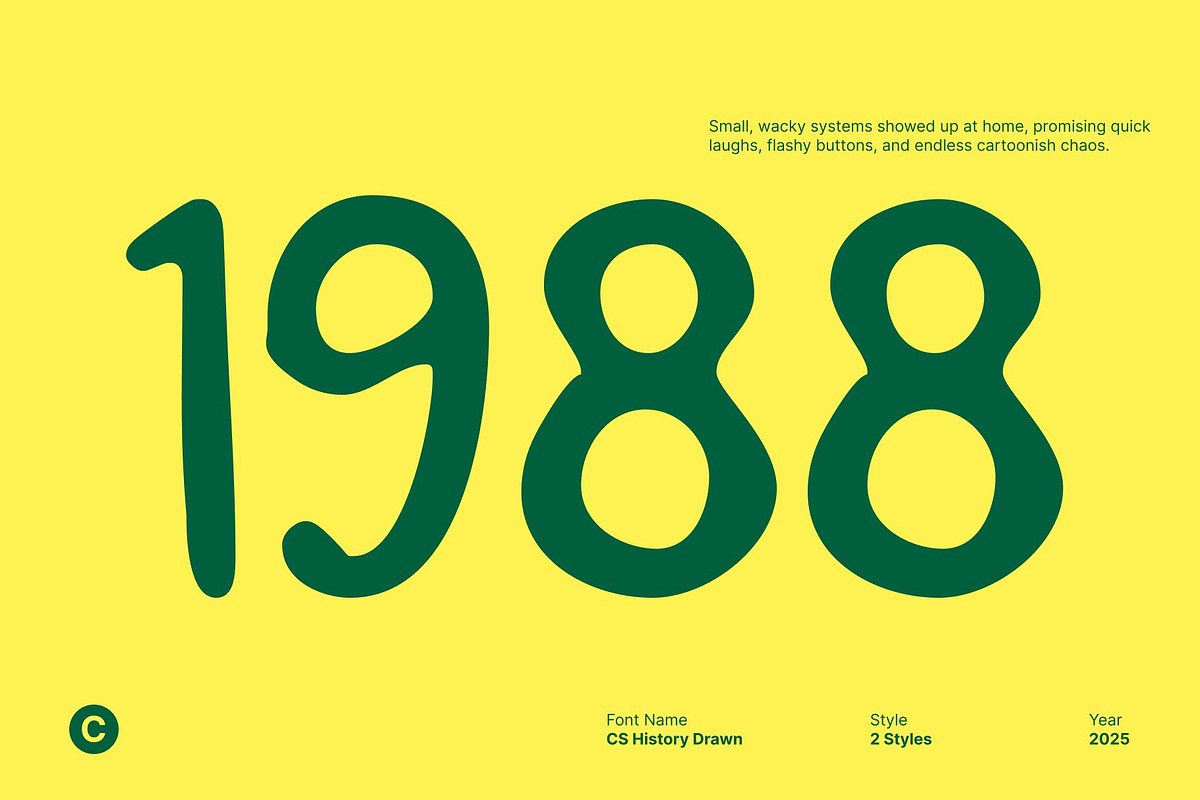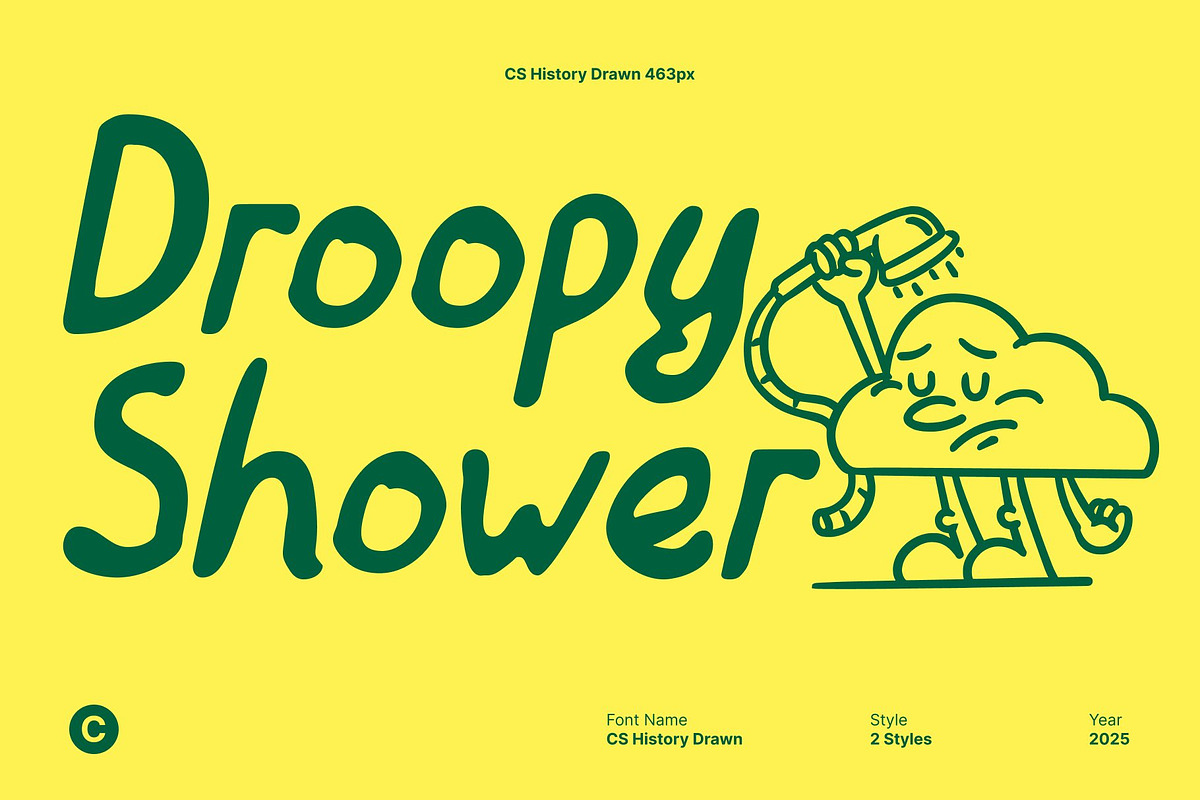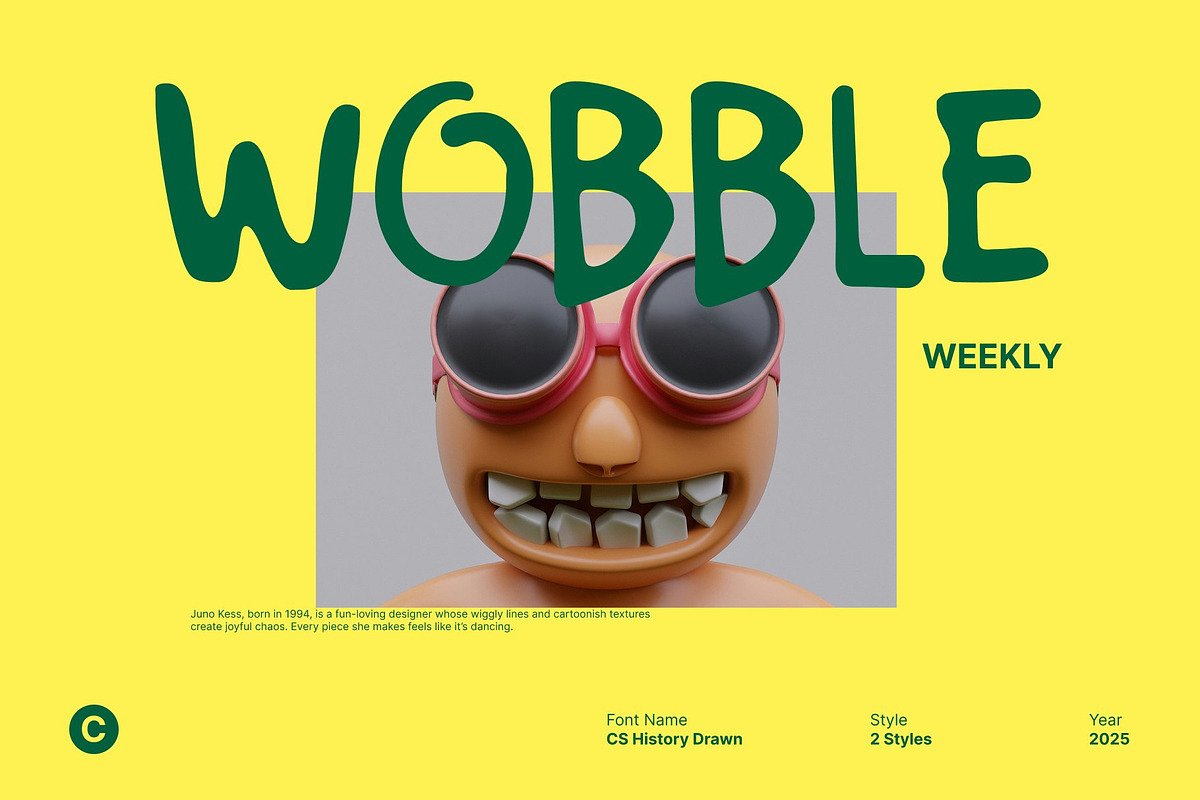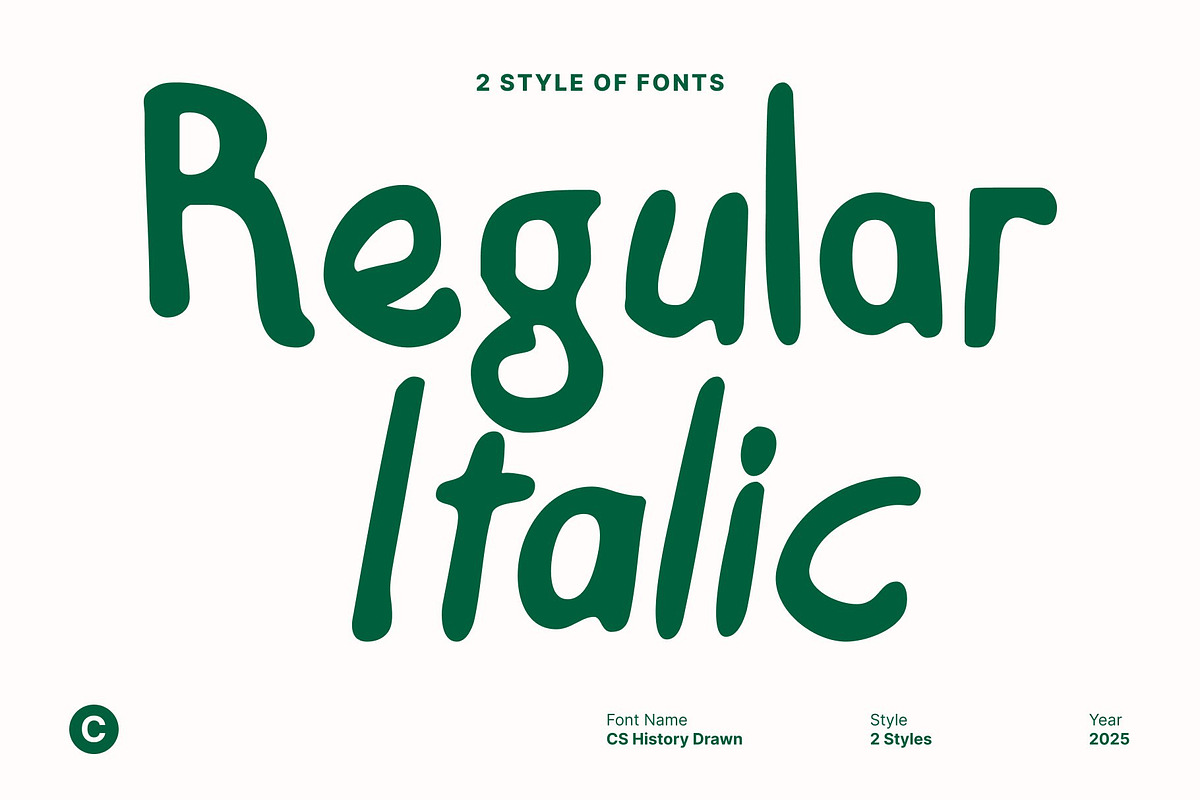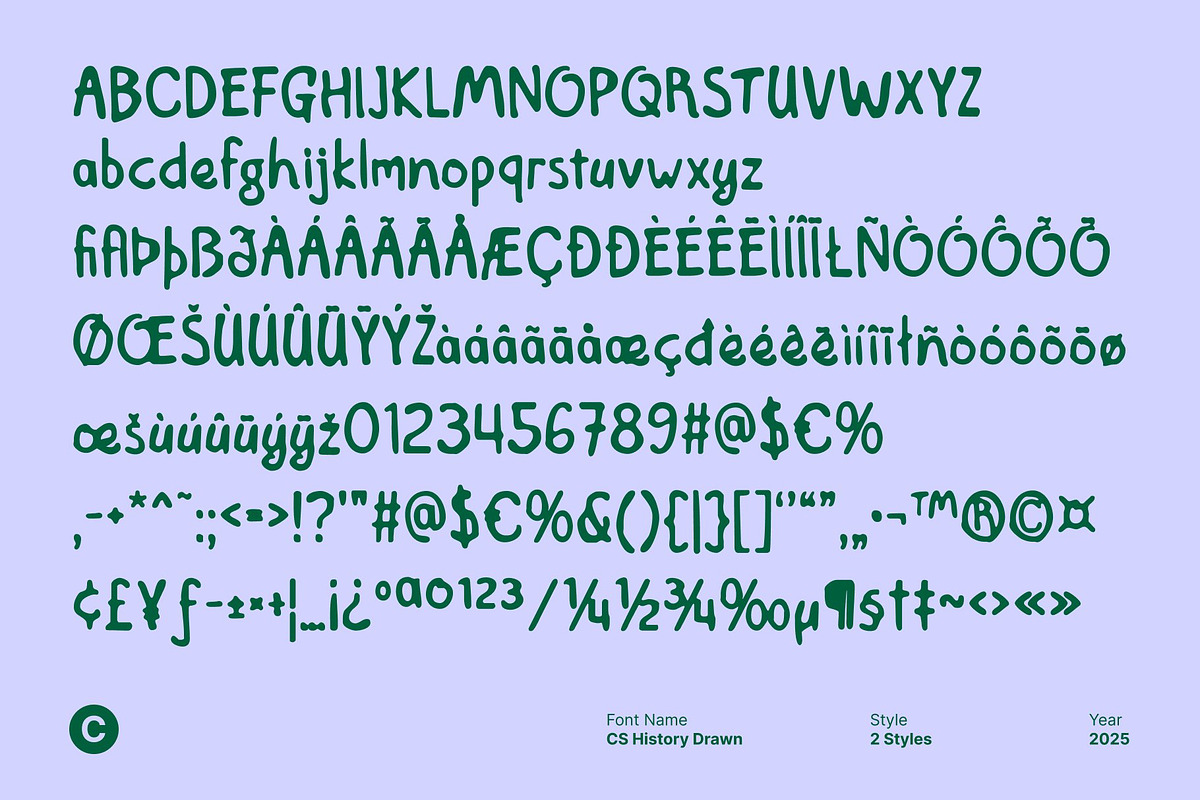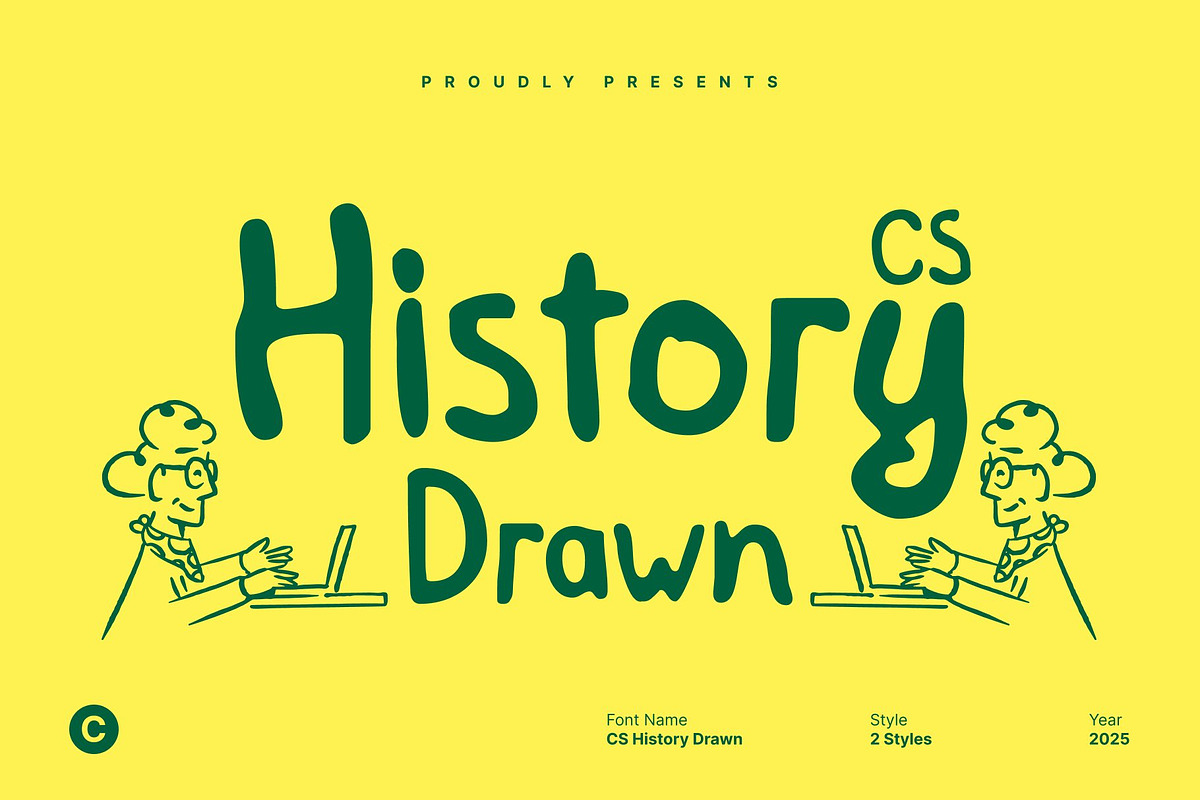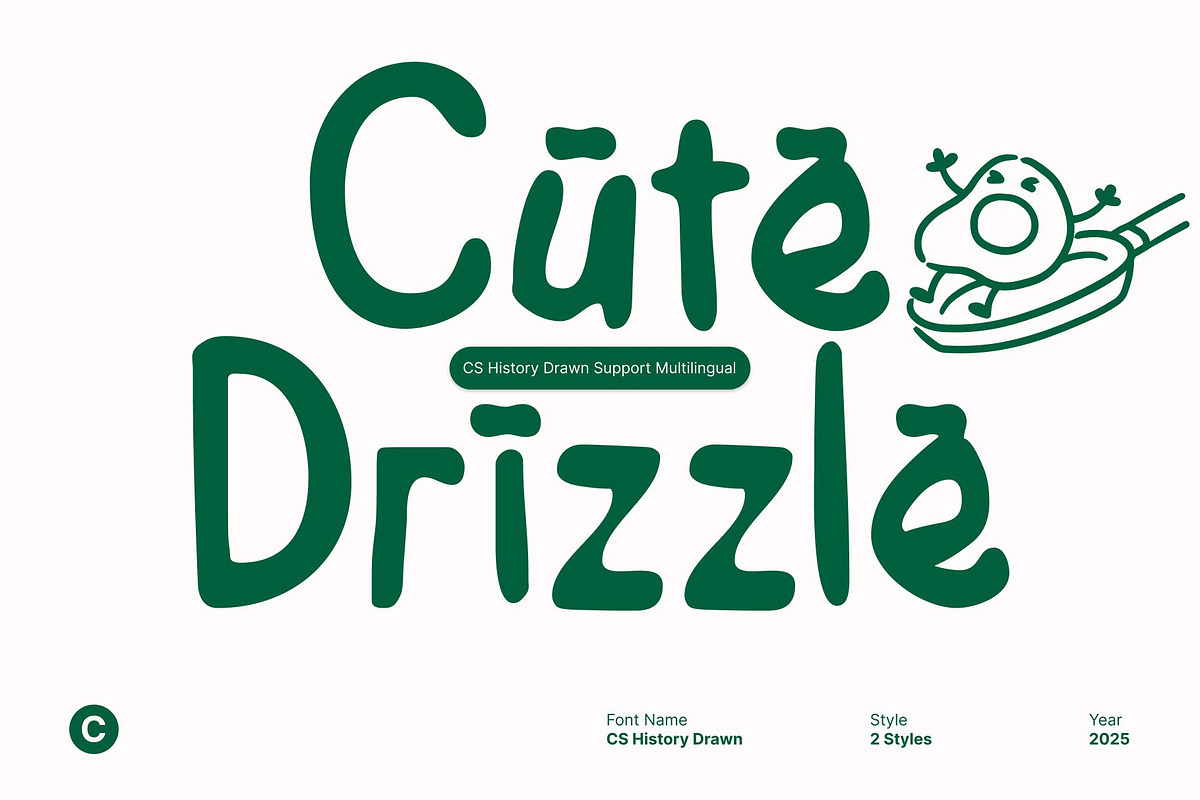
CS History Drawn
CS History Drawn – Child Etchy Display Font with Playful Hand-Drawn Charm
Sweet, Playful Shapes for Youthful Designs This is a charming child etchy display font designed to radiate innocence, joy, and pure creativity. Every letter feels as if it was drawn by hand with soft, imperfect strokes that bring out a warm, authentic personality. This font captures the spontaneity of children’s doodles making it perfect for any design that wants to feel friendly, approachable, and full of imagination.
Hand-Drawn Texture That Adds Character With its gentle drawn texture, embraces a natural, slightly rough finish that enhances its handmade appeal. The etched, organic strokes give each character a lively, textured touch that feels expressive and fun. This quality makes the font ideal for projects that aim to feel personal, artistic, or crafted with care.
Perfect for Kids’ Branding and Creative Projects Whether you’re designing children’s product packaging, playful posters, greeting cards, or educational materials, brings a delightful energy that instantly connects with young audiences. Its friendly shapes and whimsical look make it a strong choice for brands or designs that need to communicate joy, innocence, and creativity.
Versatile, Fun, and Full of Personality Beyond kids-focused designs, this font also shines in creative labels, DIY-themed graphics, handmade craft branding, and fun event promotions. Its expressive style ensures your typography stands out while maintaining a soft, heartwarming impression.
- CS History Drawn Regular
- CS History Drawn Italic